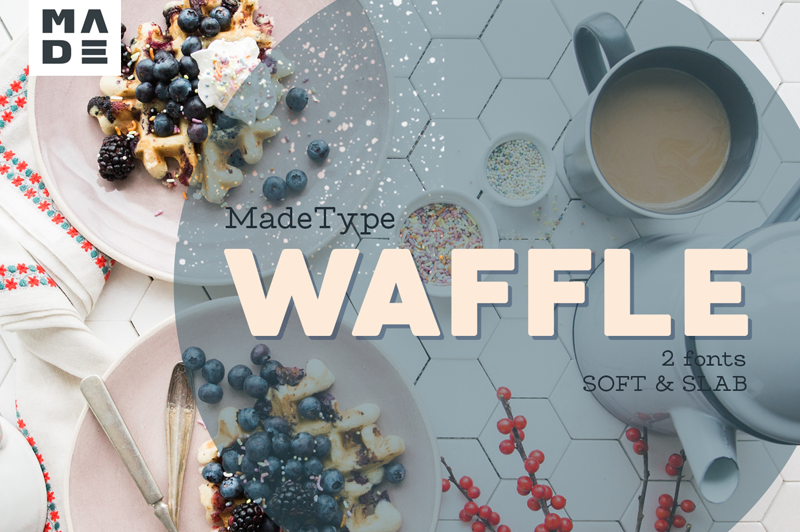
Preview and download Made Waffle Soft Font. Created by MADE Type in Basic Sans serif styles with 100% Free license.
MADE Waffle - ideal for creating logos, headings. Applicable in the design of restaurants and cafes. MADE Waffle are two fonts created for combinations of your ideas. Font is FREE for PERSONAL USE. Contact me mail for commercial use and questions: Madetypeinfo@gmail.com ----- FOR PERSONAL AND COMMERCIAL WORK https://www.fontspring.com/fonts/madetype https://creativemarket.com/MadeType https://thehungryjpeg.com/madetype https://www.youworkforthem.com/designer/1002/madetype/ ----- https://www.behance.net/madetype Email for questions: Madetypeinfo@gmail.com |